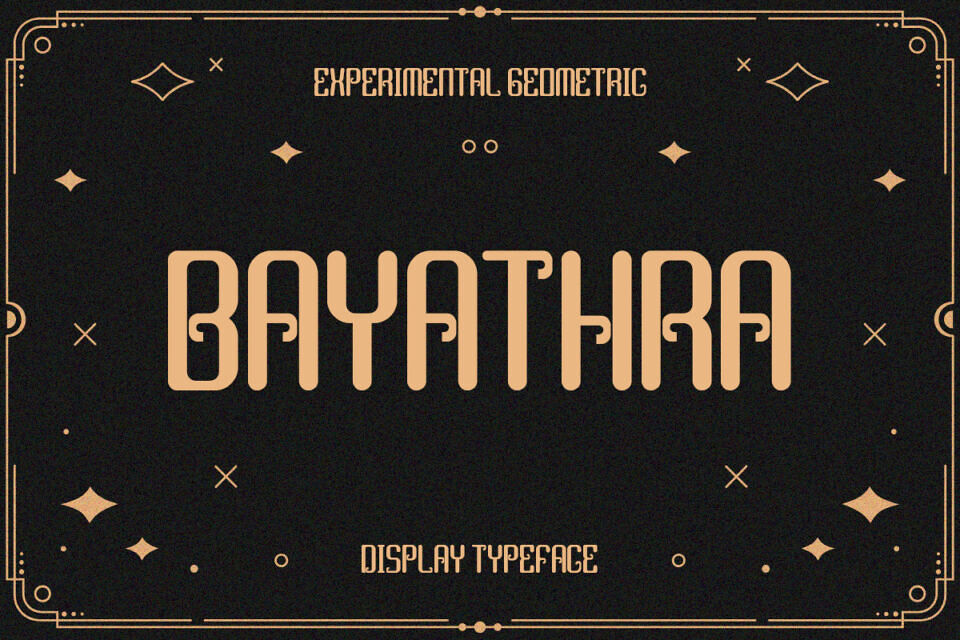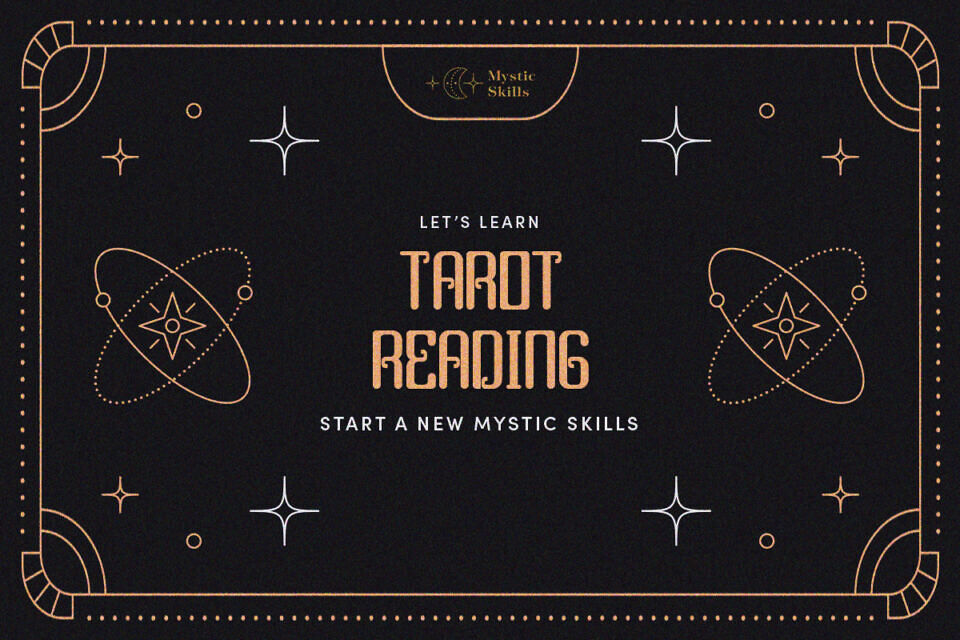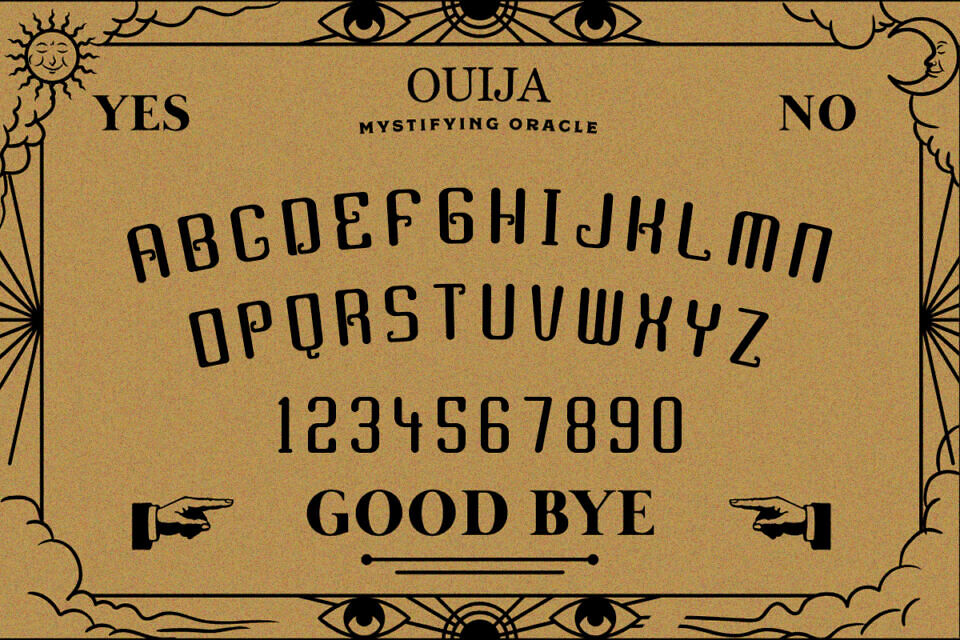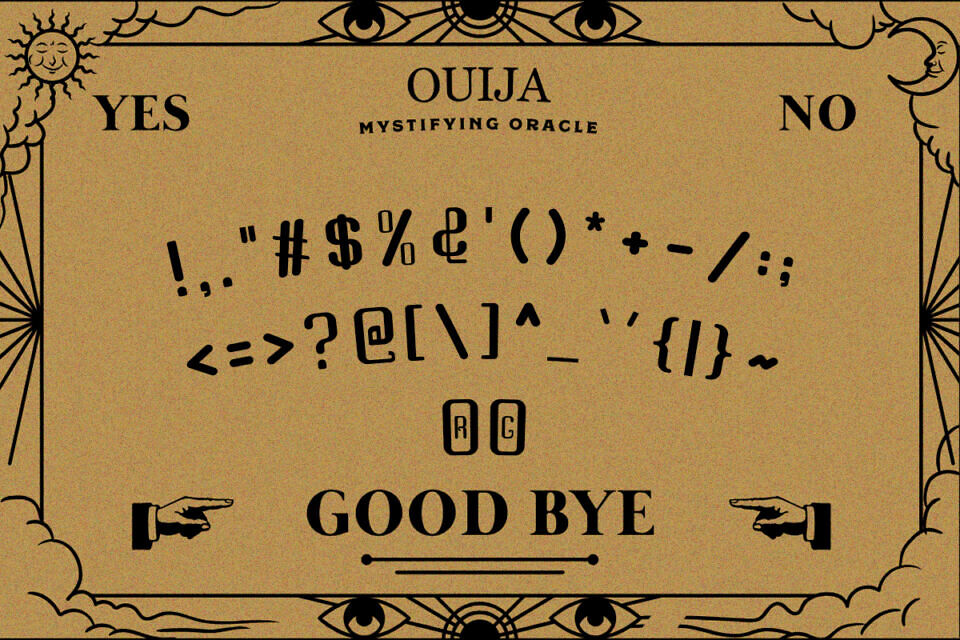
Bayathra is a bold and unconventional display font that blends geometric precision with abstract, experimental flair. Each letterform is crafted with a strong vertical structure and unexpected curves, giving it a futuristic yet retro-inspired vibe. Perfect for posters, branding, editorial layouts, and any design project that demands attention and uniqueness.
Bayathra typeface is ideal for creative professionals who want to break the rules of traditional typography. Whether you’re designing a tech-inspired interface, an avant-garde art zine, or a statement piece, Bayathra delivers both visual impact and modern sophistication.